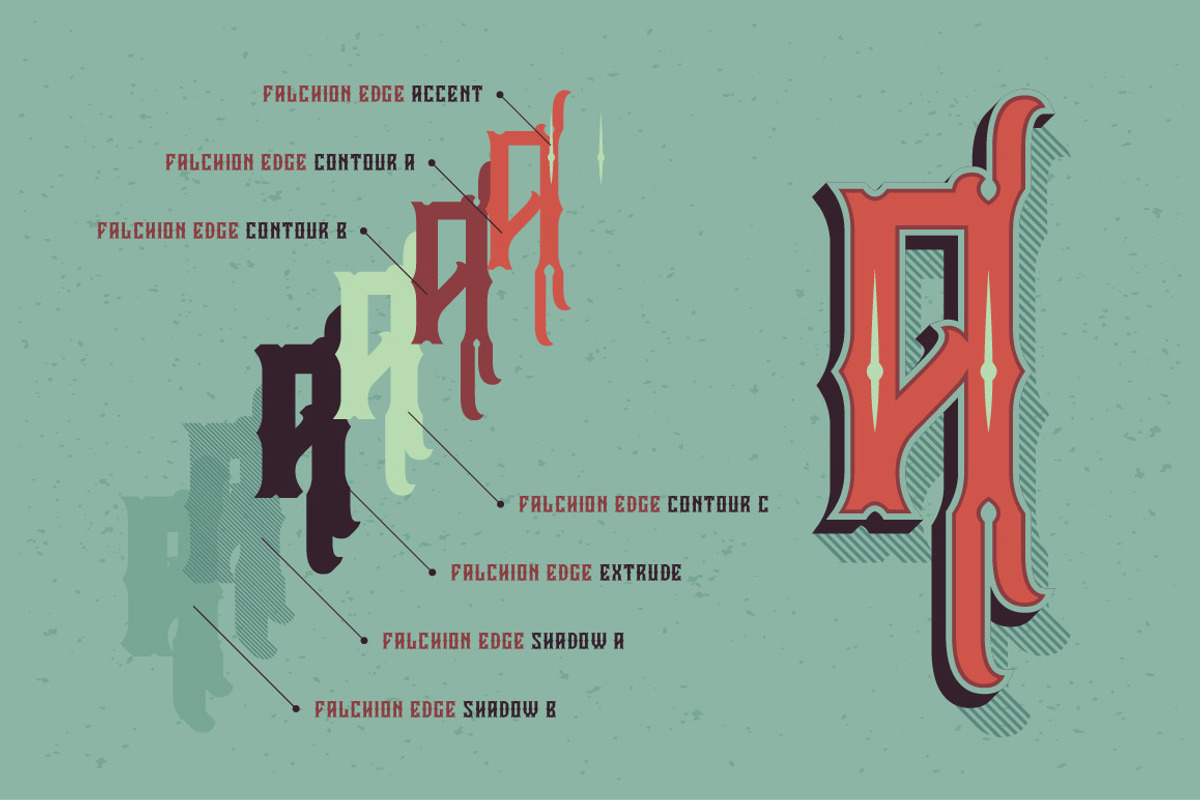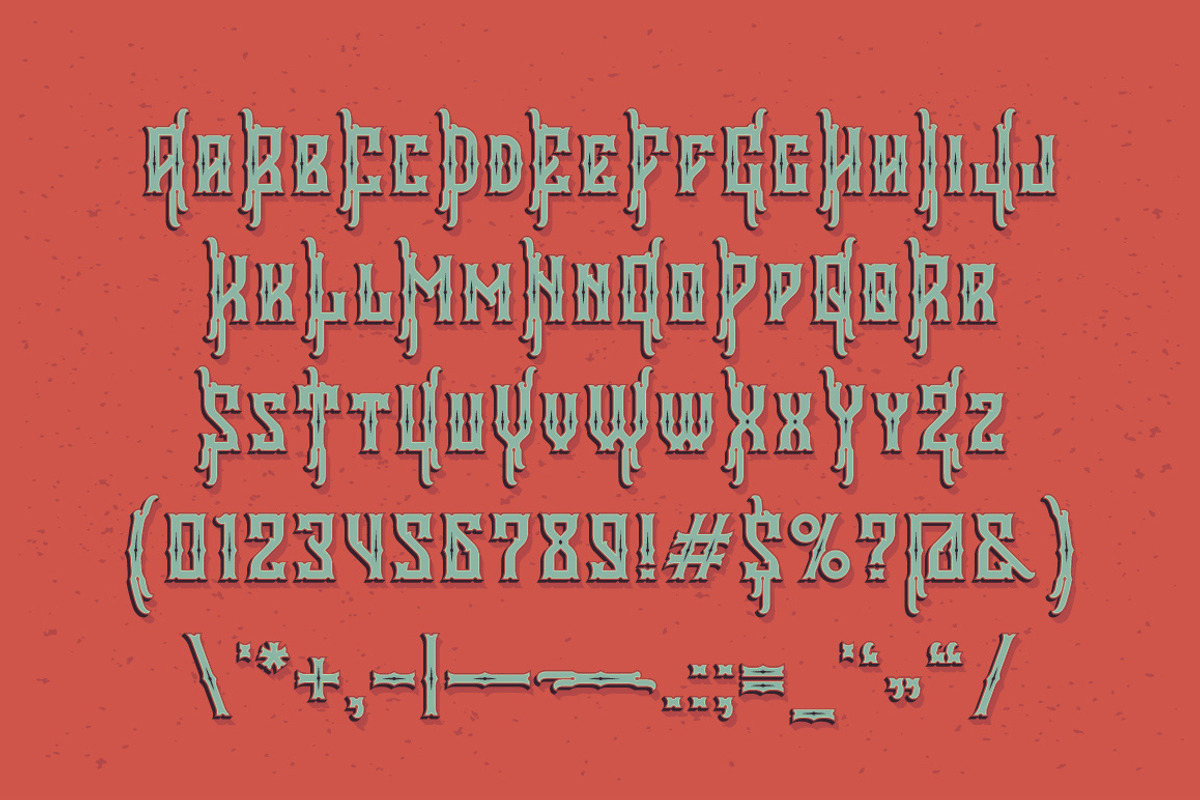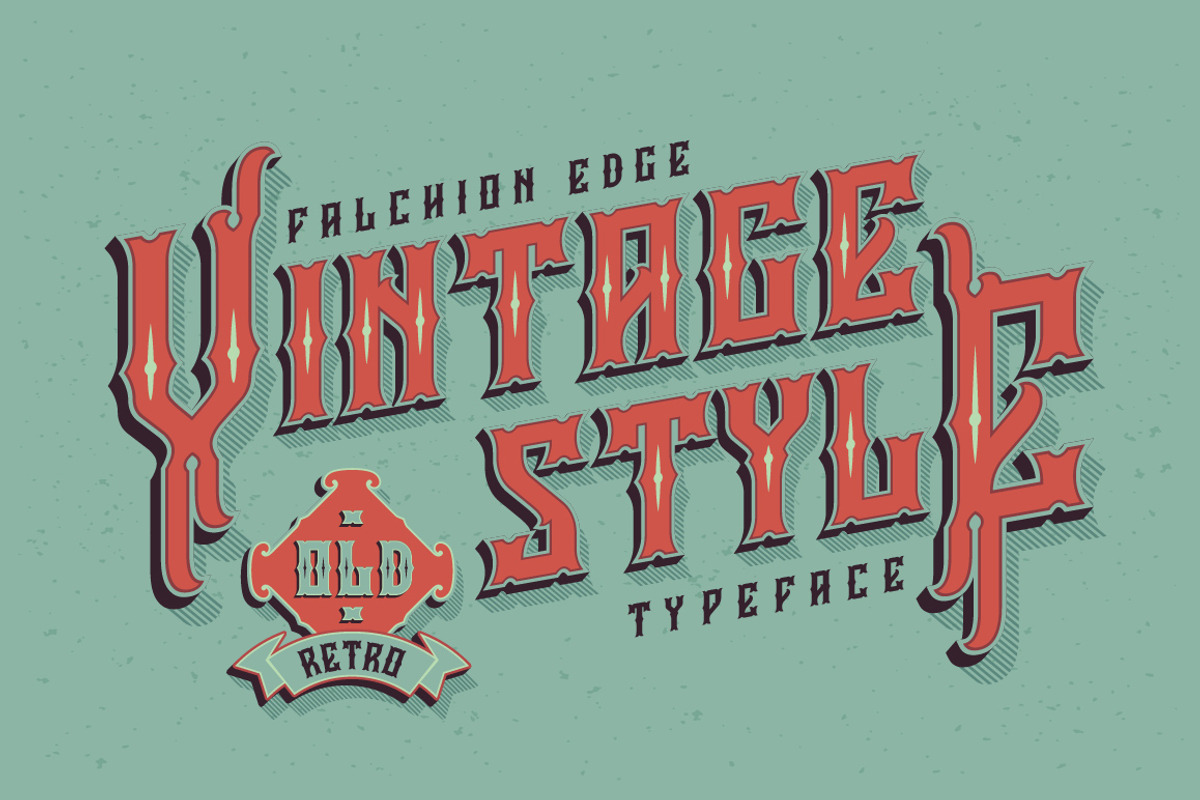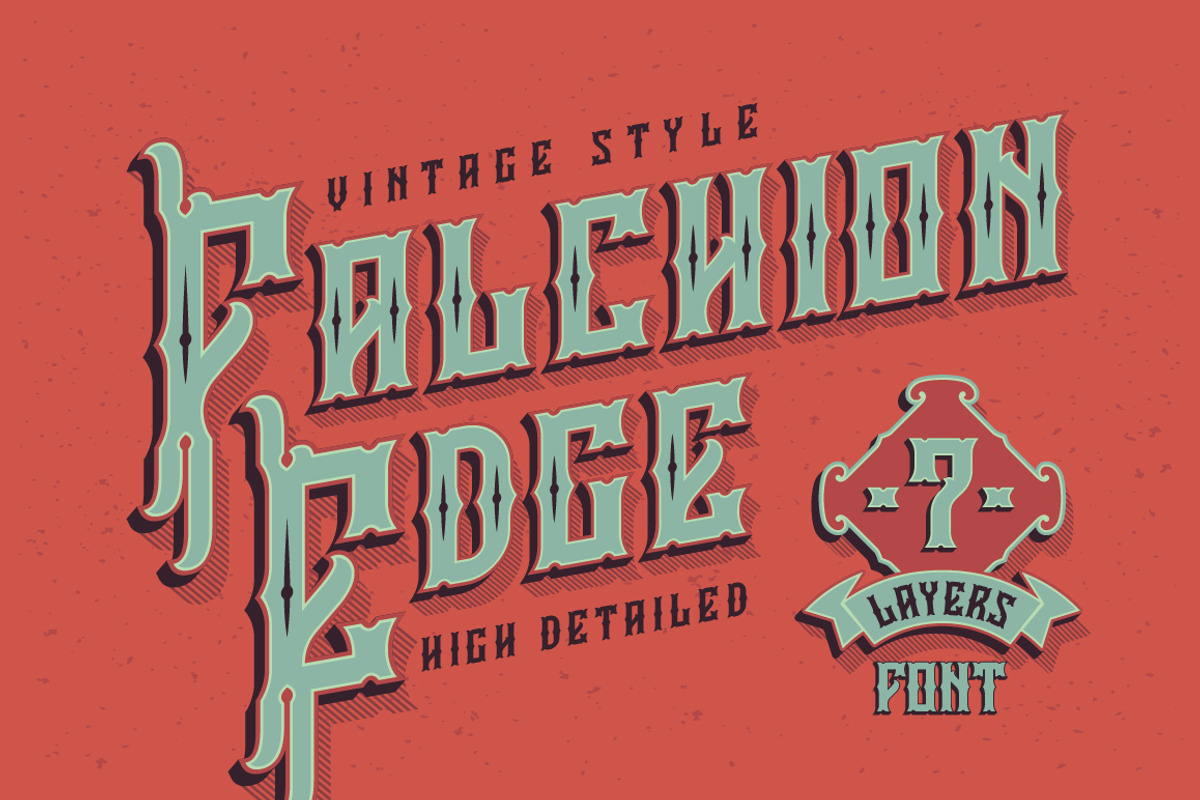
Falchion Edge font
Falchion Edge font by Gleb Guralnyk is a font selected for branding, posters, packaging, typography.
Why Falchion Edge font is worth a look
Falchion Edge font by Gleb Guralnyk fits naturally into Branding, posters, packaging, typography.